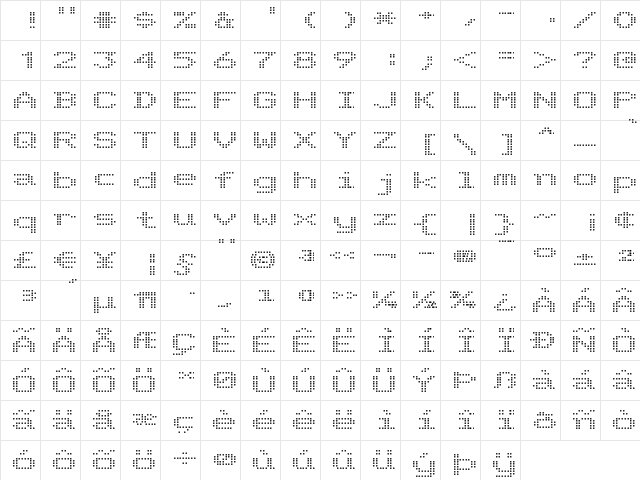
Telidon Ex Regular
| Foundry | Typodermic |
Design Context for Telidon Ex Typeface
Telidon Ex takes a measured approach to typography — its balanced proportions and neutral character make it a reliable workhorse for both digital and print work.